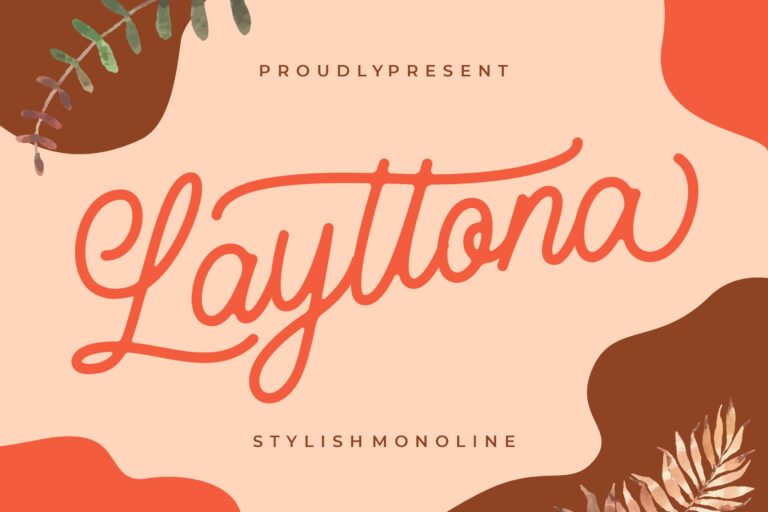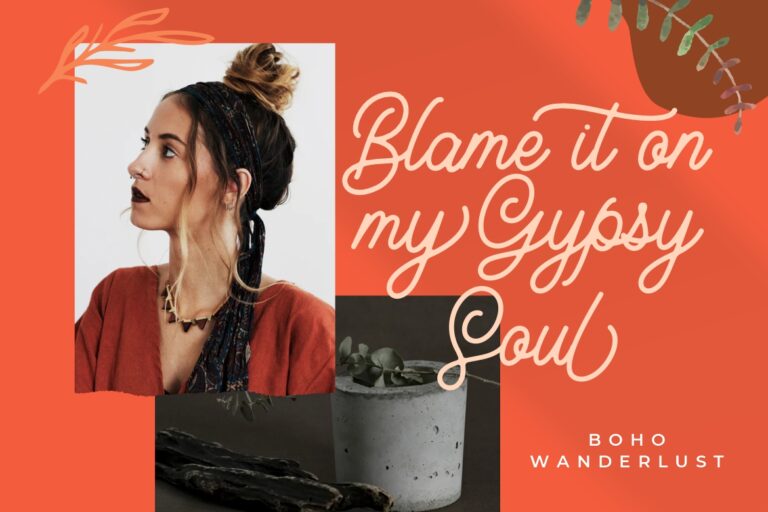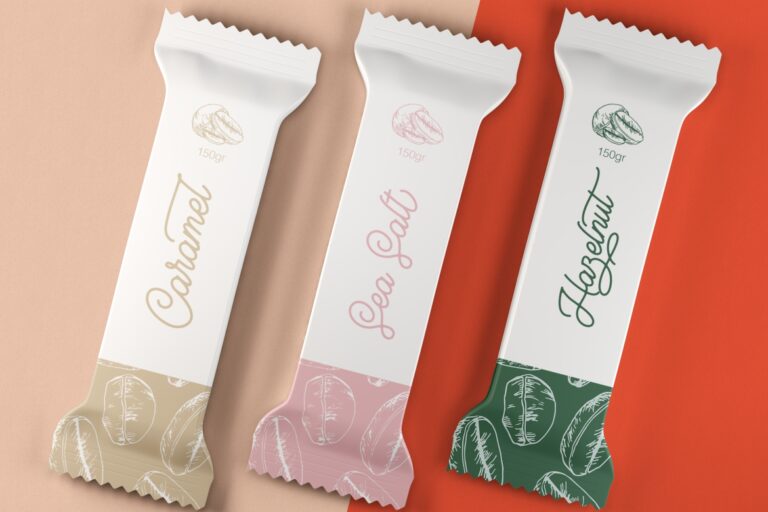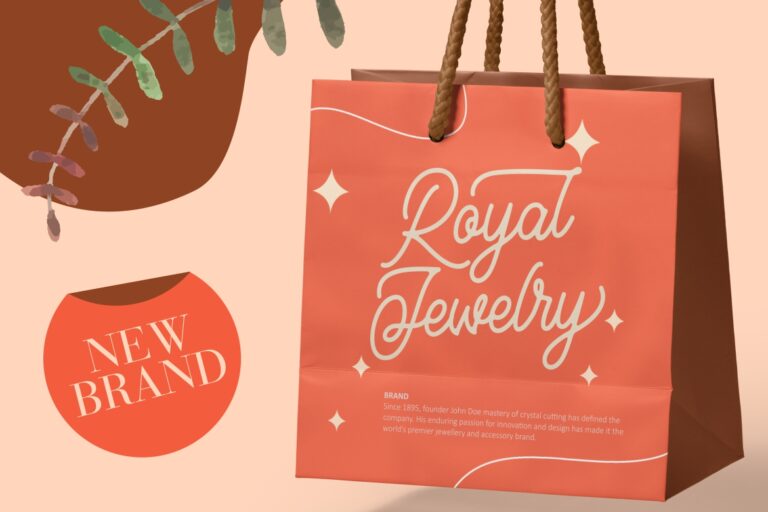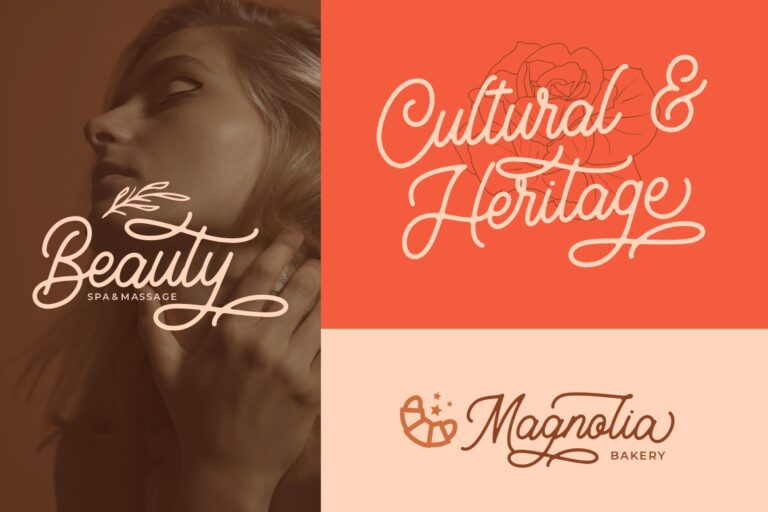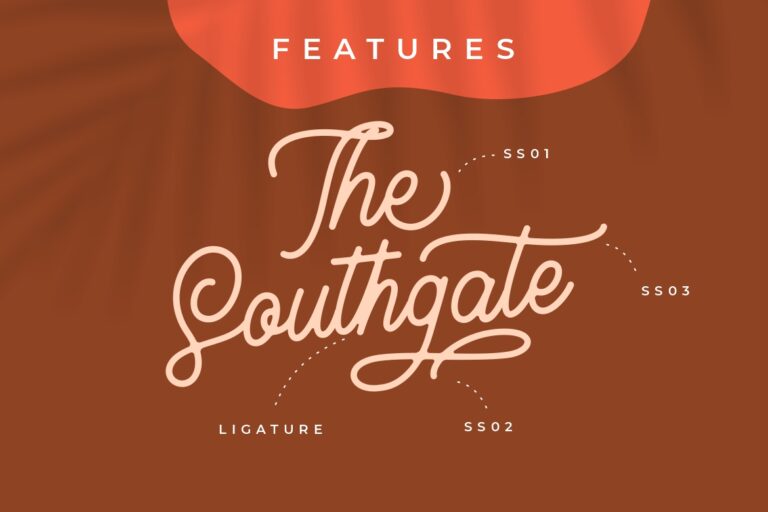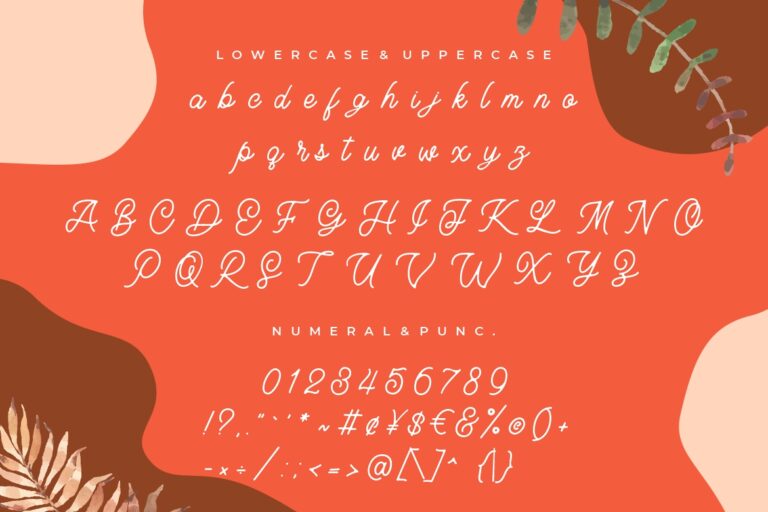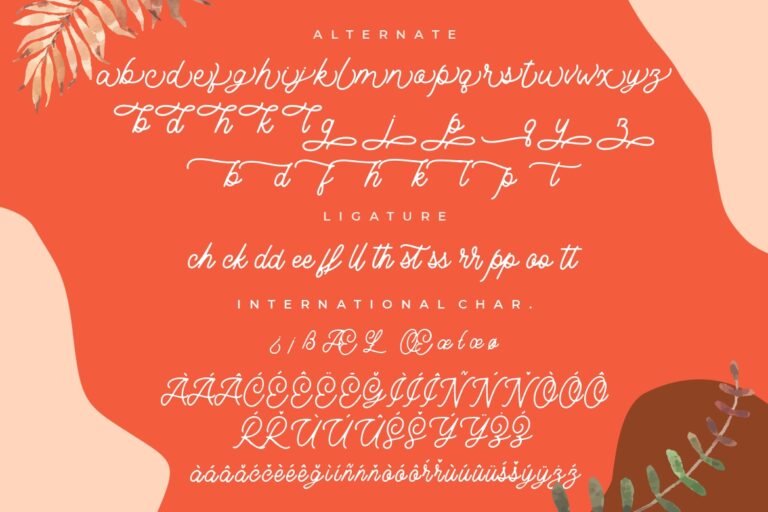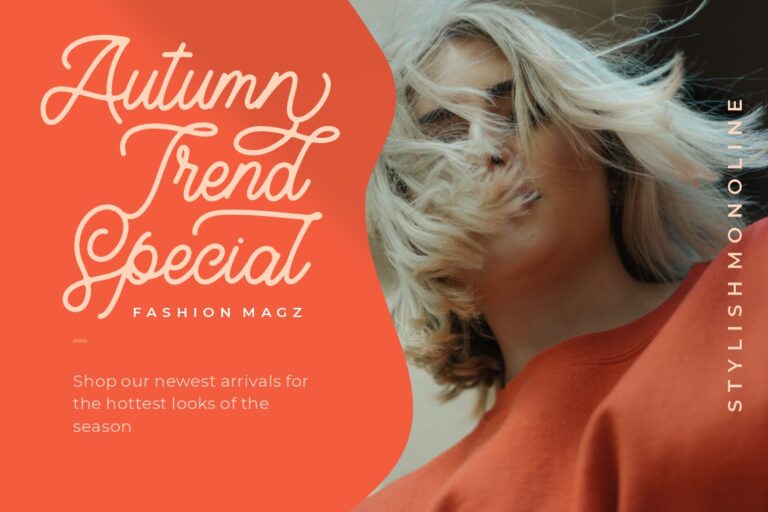
Layttona is classy monoline font with swash and ligature that looks modern and perfect for your project.
Layttona would perfect for photography, watermark, social media posts, advertisements, logos & branding, invitation, product designs, label, stationery, wedding designs, product packaging, special events or anything that need handwriting taste.
• Ton of glyphs
• Ligature & Alternate
• Fonts include multilingual support for; Afrikaans, Albanian, Czech, Danish, Dutch, English, Estonian, Finnish, French, German, Hungarian, Italian, Latvian, Lithuanian, Norwegian, Polish, Portugese, Slovak, Slovenian, Spanisch, Swedish.
Layttona Stylish Monoline